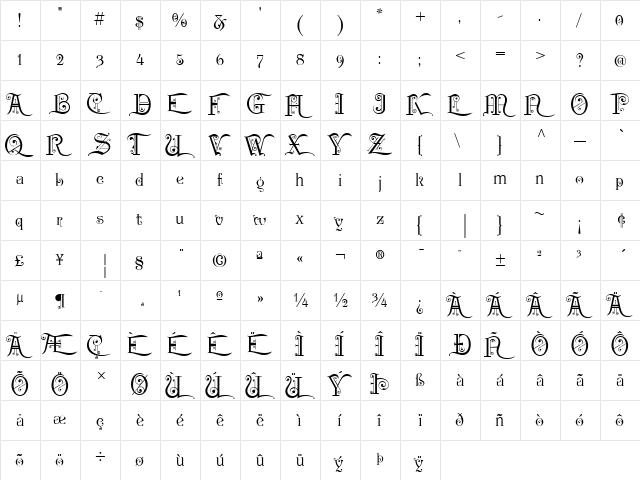
P22 Kilkenny Swash Swash
| Foundry | International House of Fonts - P22 type foundry |
| Designer | Paul Hunt |
Design Context for P22 Kilkenny Swash Typeface
P22 Kilkenny Swash brings a calligraphic fluidity to the page — its connecting strokes and expressive curves give it an unmistakably human quality.
Font Pairing: Combine P22 Kilkenny Swash with a simple geometric sans for maximum contrast — the tension between flowing curves and clean structure is a classic typographic pairing.
Pro Tip: Pair P22 Kilkenny Swash with a clean sans-serif for supporting text. The contrast between fluid script and geometric structure creates an elegant typographic hierarchy.